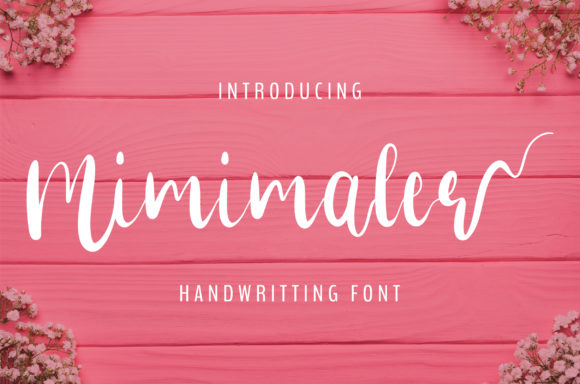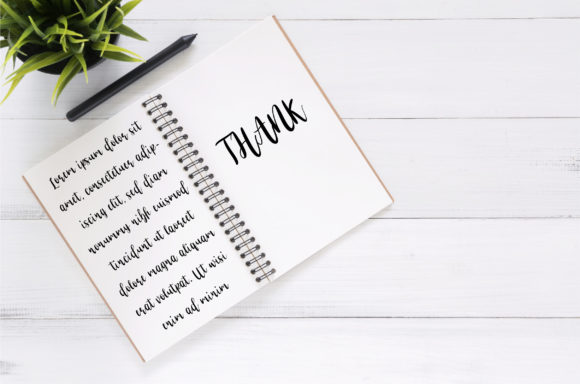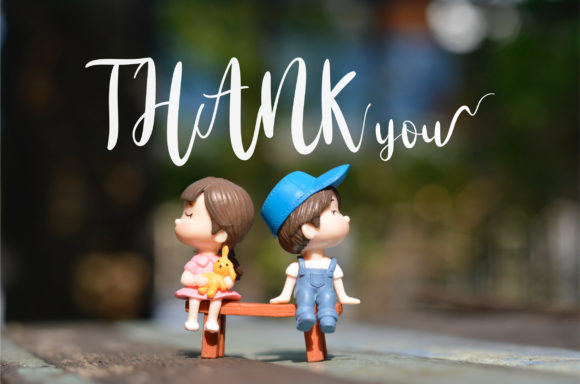
HomeScript FontsMinimaler Font Script Fonts Minimaler Font FacebookXPinterestWhatsApp Minimaler Font Poster 2 Minimaler Font Poster 3 Minimaler Font Poster 4 Minimaler Font Poster 5 Minimaler Font Poster 6 Minimaler Font Poster 7 Minimaler Font Poster 8 Minimaler Font Poster 9 Minimaler Font Poster 10 Minimaler Font Poster 11 About Minimaler Font Minimaler is a cheerful and dynamic script that features beautiful swashes. Get inspired by its elegant charm! DOWNLOAD NOW People also explored Spaxel Chrystelle Font Irish King Font Homeschool Font Cangela Font Glob Shella Script Font Yuba BTN Uncle Oscar 559 0 TagsMinimaler Font Previous articleRomello FontNext articleLindsay Font LEAVE A REPLY Cancel reply Comment: Please enter your comment! Name:* Please enter your name here Email:* You have entered an incorrect email address! Please enter your email address here Website: Save my name, email, and website in this browser for the next time I comment. Personal Use Free Homelands Personal Use Free Read more about this font Lightning Script Personal Use Free Read more about this font Miracles Personal Use Free Read more about this font Pattern Personal Use Free Read more about this font BLOG How to Cut Any Font on Cricut: Convert a Font to SVG (Free) Turn any font into a clean SVG so it cuts crisp on Cricut - a quick 3-step workflow using a free font-to-SVG tool. 5 Fonts That Will Dominate Design Trends in 2026 Elegant Wedding Invitation Fonts – Handwritten & Script Fonts Top 7 Google Fonts Alternatives for Faster and Privacy-Friendly Web Design (2025)